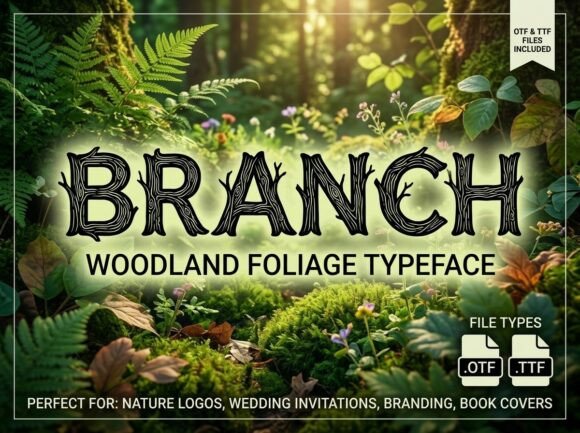
Unleash the Wild Side of Typography with Branch Font
Have you ever been in the middle of a design project, and suddenly, you’re stuck on finding the perfect font? I recall a recent experience where I was working on a branding project for an organic grocery store, and I just couldn’t find a font that captured the essence of nature and rustic charm. That’s when I stumbled upon the Branch font, and it completely transformed my design. In this article, we’ll dive into the world of Branch, an exquisite woodland foliage display typeface that’s sure to bring an organic, illustrative soul to your canvas.
The Magic of Branch Font
Branch is a high-impact display font that features heavy, structured letterforms meticulously carved out of realistic tree trunks and twisting forest branches. The attention to detail is stunning, with a deep, hand-drawn wood grain bark texture and delicate organic twigs and leaf knots along its terminals. This font strikes a perfect balance between architectural weight and fairytale magic, making it an extraordinary option for various design projects, such as:
- Nature reserve logos
- Organic grocery branding
- Fantasy book cover headers
- Botanical garden signage
- Rustic wedding invitations
An Honest Review of Branch Font
- 💯 The level of detail and realism in the font is exceptional.
- ✅ The font is incredibly versatile and can be used for a wide range of design projects.
- 🌿 The organic feel of the font is perfect for designs that require a natural, earthy vibe.
- 🎨 The font’s unique style allows for creative freedom and experimentation.
While Branch font is exceptional, there are a few minor limitations to consider:
- 🤔 The font’s heaviness may not be suitable for body text or smaller font sizes.
- ⚠️ Some characters may require manual kerning for optimal spacing.
- Experiment with the font’s OpenType features, such as glyphs and stylistic alternates, to add more character to your text.
The Story Behind Branch Font
Branch font was designed with the intention of capturing the essence of nature and bringing it to life through typography. The designer aimed to create a font that would evoke a sense of wonder and magic, while also being highly legible and versatile. Through meticulous attention to detail and a passion for nature, the designer has created a truly unique and captivating font.
| What is the best use case for Branch font? | Branch font is ideal for designs that require a natural, earthy vibe, such as nature reserve logos, organic grocery branding, and botanical garden signage. |
| Is Branch font suitable for body text? | No, Branch font is a display font and is best used for headlines or titles. Its heaviness may not be suitable for body text or smaller font sizes. |
| Does Branch font come with any OpenType features? | Yes, Branch font comes with a range of OpenType features, including glyphs and stylistic alternates. |